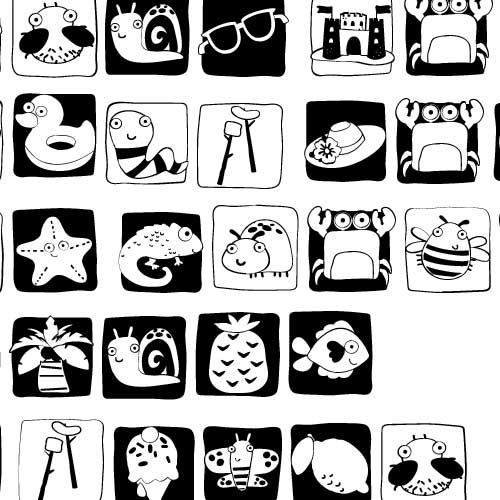
DB Iconic - Summer - DB
This fun doodlebat font features 26 summer elements from our iconic style. Perfect for cards, crafts, gifts, planner stickers, scrap book pages, parties, decor and more!